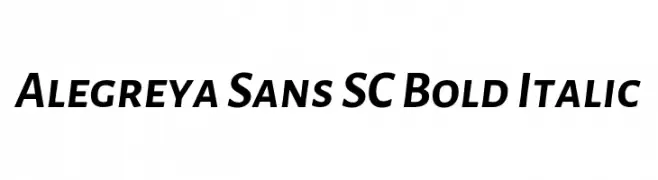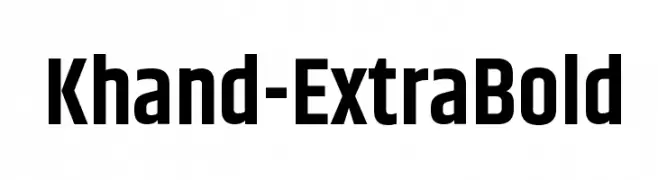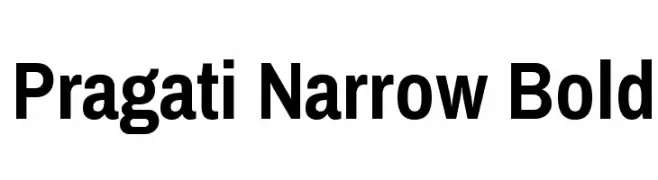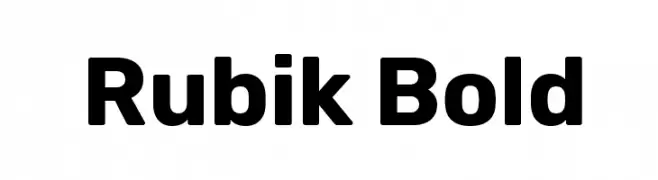
A robust, extra bold sans-serif typeface with a modern and professional look.
A bold, modern sans-serif font with a clean and professional look.
A bold, dynamic serif typeface with angular serifs and strong presence.
A bold, narrow font with a modern and compact design.
A bold, calligraphic-inspired font with dynamic curves and sharp edges.
A bold, geometric sans-serif font with a strong, modern presence.
A bold, geometric sans-serif font with a modern and clean design.
A bold, italicized sans-serif font with a modern and dynamic style.
A bold, modern font with a strong presence and uniform stroke width.
A bold, modern sans-serif font with excellent readability and strong presence.